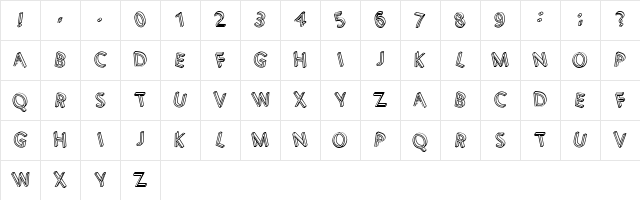
3D Letters Regular Free Font
3D Letters Regular
Design Context for 3D Letters
3D Letters is a composed and adaptable typeface that performs quietly and consistently across a wide range of design contexts.